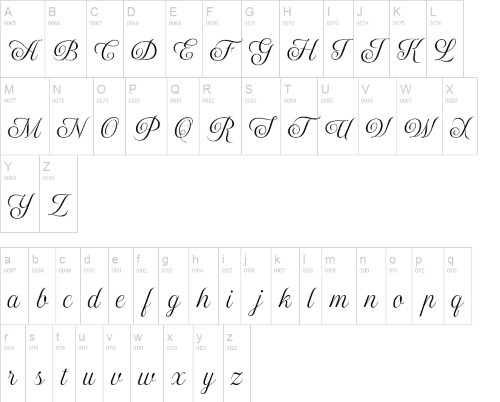
Rayson Downley Script Font
Rayson Downley Script Font is a graceful, flowing script typeface defined by its swirly, elegant strokes. Its smooth curves and decorative flourishes create a warm, inviting aesthetic, making it perfect for invitations, logos, branding, quotes, and romantic or luxury-themed designs.
➤ Font Name: Rayson Downley Script
➤ Designer: Måns Grebäck
➤ Style: Calligraphy